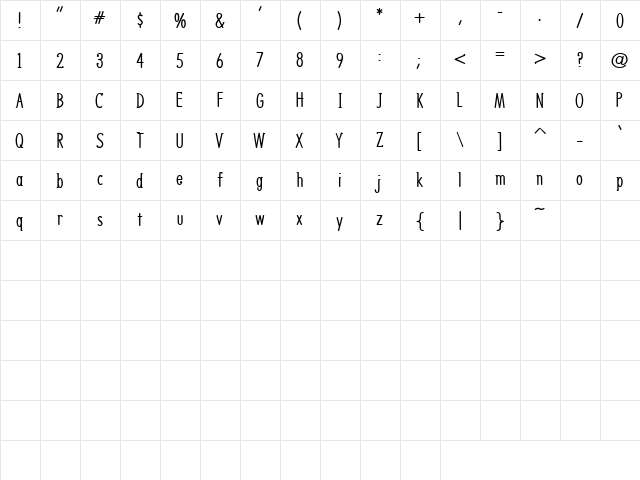
LD Tall Pen Regular
Design Context for LD Tall Pen Typeface
LD Tall Pen offers clean, dependable letterforms without strong stylistic allegiance, making it a practical choice for designers who need flexibility.
Pro Tip: Use LD Tall Pen in both headline and body roles to test its range before committing to a single application.